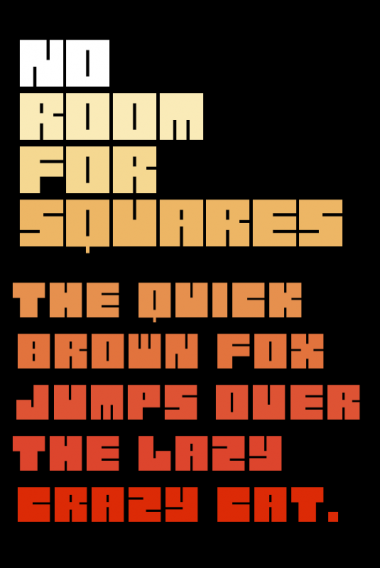
No Room For Squares
Magic Sam
Monotype pixel font...give it a try!
Very cool...except maybe detach the middle of the G, looks too much like a 6.
It´s done.